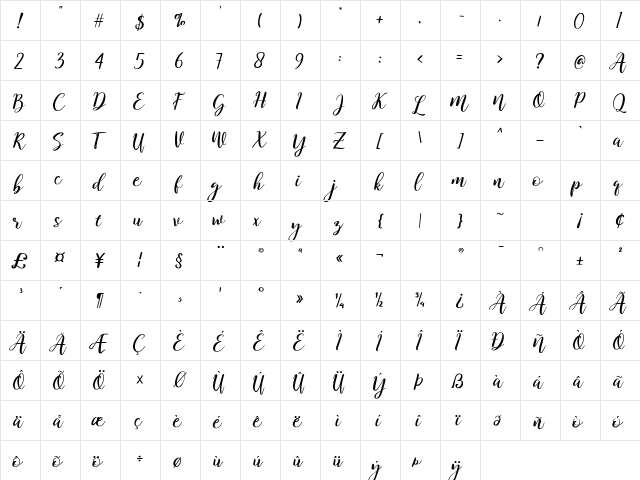
Kitahara Script Regular
| Foundry | Balibilly Design |
| Designer | Balibilly Design |
Design Context for Kitahara Script Typeface
Kitahara Script brings a calligraphic fluidity to the page — its connecting strokes and expressive curves give it an unmistakably human quality.